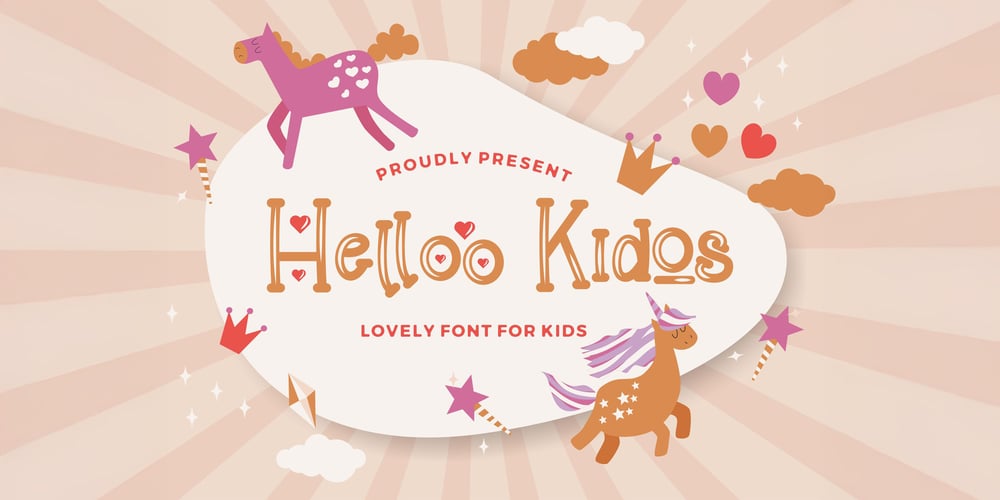
Helloo Kidos
Helloo Kidos font
Helloo Kidos Font Family was designed by Virgiawan Listanto and published by Stringlabs Creative Studio. Helloo Kidos contains 1 styles and family package options. Bring a fun, lively vibe to your designs with Helloo Kidos, a playful and quirky display font that is perfect for adding personality to your creative projects. Helloo Kidos effortlessly combines boldness and whimsy, making it perfect for designs that stand out with character and charm.